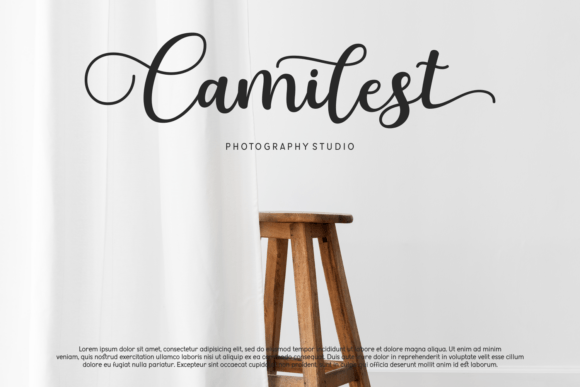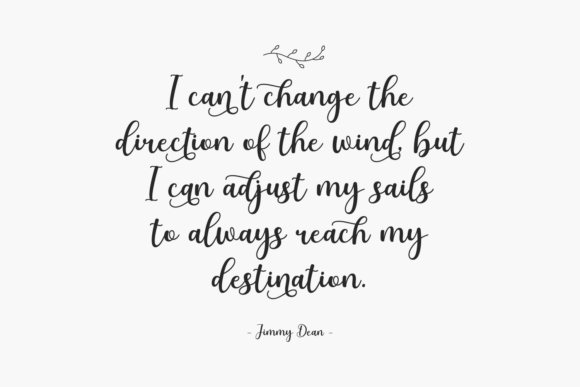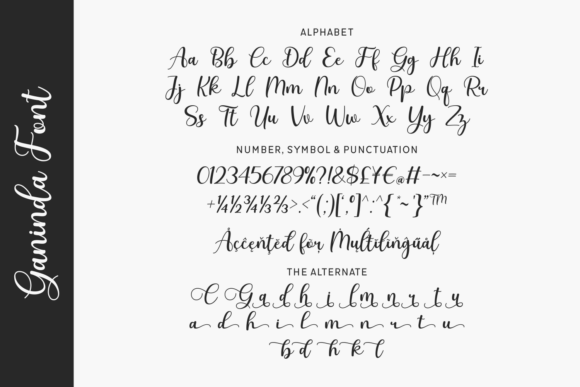
Introducing Ganinda Font: Elevate Your Designs with Elegance and Charm
In the world of typography, fonts play a crucial role in conveying the tone and personality of a design. For designers and crafters looking to add a touch of sophistication and warmth to their projects, Ganinda Font is an excellent choice. This stylish script font boasts a flowing, handwritten look that is sure to captivate audiences and leave a lasting impression.
The Characteristics of Ganinda Font
Ganinda Font is distinguished by its elegant curves and soft lines, which give it a unique and refined appearance. Its friendly and warm demeanor makes it perfect for a variety of applications, including invitations, greeting cards, and any project that requires a personal touch. Whether you’re designing a wedding invitation, a birthday card, or a promotional material, Ganinda Font is sure to add charm and creativity to your work.
Why Choose Ganinda Font?
There are several reasons why Ganinda Font stands out from the crowd:
- Elegant and Refined: Ganinda Font features beautiful, flowing curves that give it an air of sophistication and elegance.
- Versatile: This font is suitable for a wide range of projects, from formal invitations to casual greeting cards.
- Easy to Read: Despite its elegant appearance, Ganinda Font is easy to read, making it perfect for both print and digital applications.
- Unique and Creative: Ganinda Font adds a touch of personality to your designs, setting them apart from more traditional fonts.
Using Ganinda Font in Your Designs
Incorporating Ganinda Font into your designs is easy and straightforward. Here are a few tips to get you started:
- Pair it with Other Fonts: Combine Ganinda Font with other fonts to create a unique and visually appealing design.
- Play with Sizes: Use Ganinda Font in various sizes to create a hierarchy of text and draw attention to important information.
Ganinda Font is a valuable addition to any designer’s or crafter’s toolkit. Its versatility and elegance make it perfect for a wide range of projects, from:
- Wedding Invitations: Add a touch of romance and sophistication to your wedding invitations with Ganinda Font.
- Greeting Cards: Create beautiful and heartfelt greeting cards for special occasions.
- Promotional Materials: Use Ganinda Font to add a personal touch to your promotional materials, such as brochures and flyers.
- Digital Designs: Incorporate Ganinda Font into your digital designs, such as social media graphics and blog posts.
In conclusion, Ganinda Font is a stylish and elegant script font that is perfect for designers and crafters looking to add a touch of sophistication and warmth to their projects. Its flowing, handwritten look and friendly demeanor make it suitable for a wide range of applications, from invitations and greeting cards to promotional materials and digital designs. With its versatility, elegance, and ease of use, Ganinda Font is sure to become a favorite in your design toolkit.